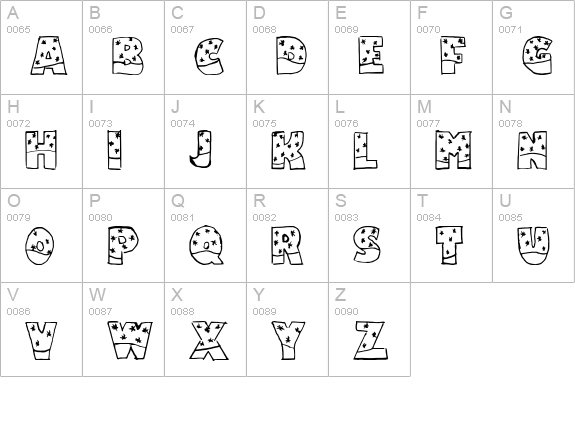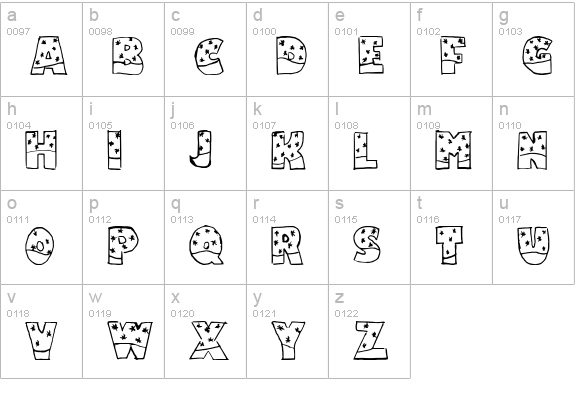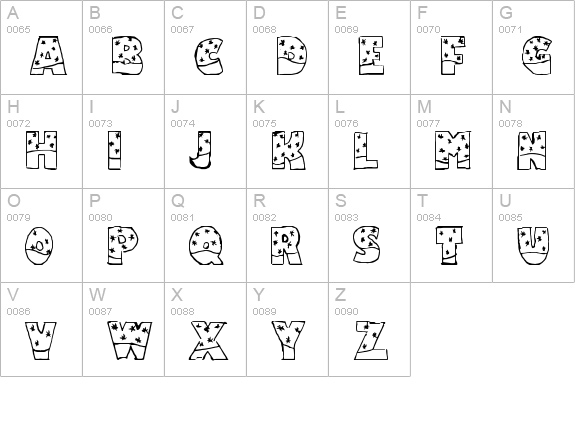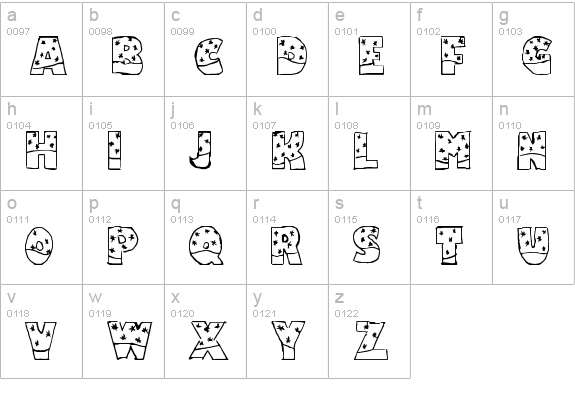
Snowfall Font Details
Snowfall is a breathtakingly beautiful font that will transport you to a winter wonderland with every letter you type. This delicate and elegant typeface captures the essence of falling snowflakes, creating a mesmerizing effect on the page. With its unique and intricate design, Snowfall is perfect for adding a touch of magic to your designs, whether it's for holiday cards, wedding invitations, or seasonal promotions. What makes Snowfall even more appealing is that it is free to download at FontsMarket.com. Yes, you read that right - this stunning font is freely available for all your creative needs. No need to worry about breaking the bank just to have access to this enchanting typeface. Simply head over to FontsMarket.com and start experiencing the beauty of Snowfall for yourself. With Snowfall, you have the power to transform your projects into a winter wonderland, captivating your audience with its ethereal charm. Each letter is meticulously crafted, resembling delicate snowflakes that dance gracefully across the page. The elegant curves and intricate details make Snowfall a true work of art, adding a touch of sophistication and whimsy to any design. Whether you're a professional designer looking to add a unique touch to your creations or an amateur enthusiast wanting to make your personal projects stand out, Snowfall is the perfect font for you. Its versatility allows it to be used in a variety of contexts, from branding and logos to invitations and posters. The possibilities are endless. So why wait? Embrace the beauty of winter and let Snowfall font add a touch of magic to your designs. Download it for free at FontsMarket.com and start creating stunning visuals that will leave a lasting impression. Get ready to be captivated by the elegance and grace of Snowfall - a font that truly embodies the enchantment of a winter's day.